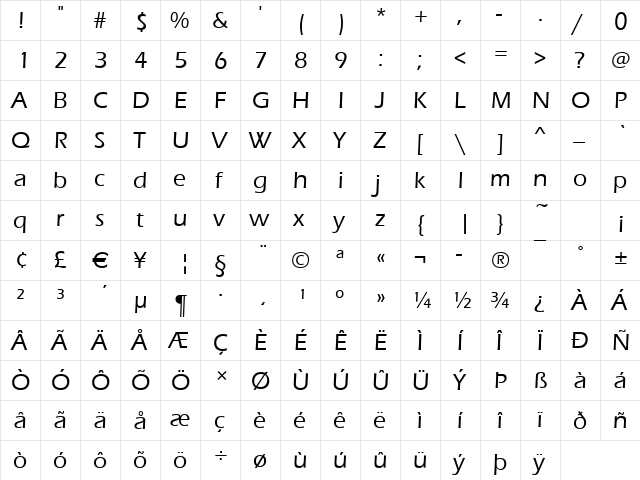
Ennis-Medium Regular
Design Context for Ennis-Medium Typeface
Ennis-Medium offers clean, dependable letterforms without strong stylistic allegiance, making it a practical choice for designers who need flexibility.
Pro Tip: Pair Ennis-Medium with a font of contrasting weight or personality to build a more expressive typographic hierarchy.